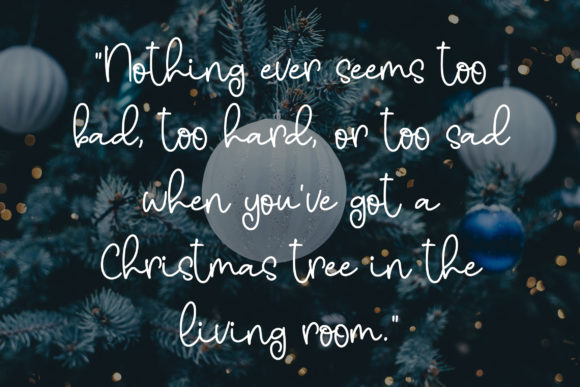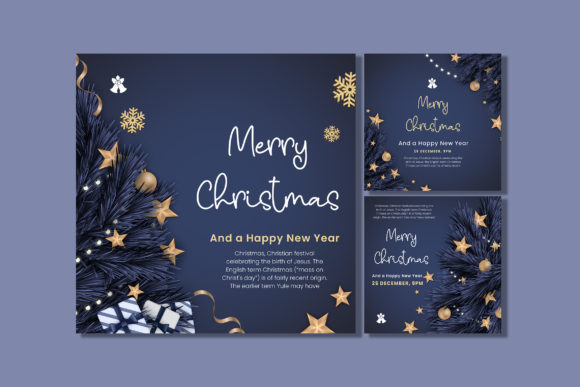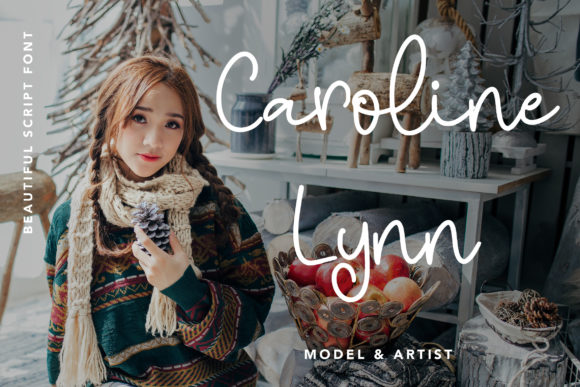
About Nightspot Font
Nightspot is a lovely script font featuring charming, playful characters that seem to dance along the baseline. Add this font to your most creative ideas, and notice how it makes them stand out!